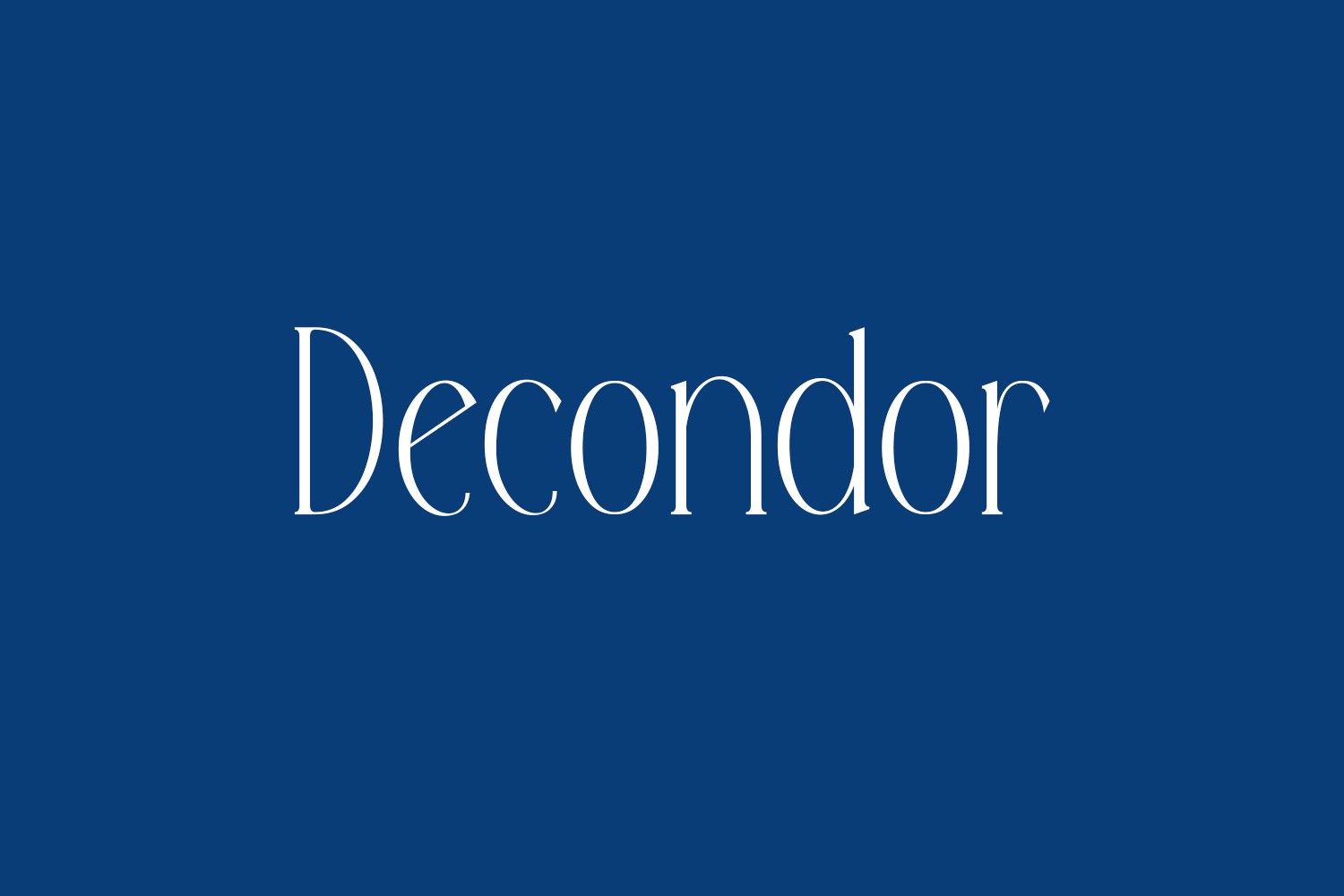
Decondor Free Font is a modern and sophisticated serif font that exudes elegance and refinement. Its sleek lines and classic form create a timeless look that is perfect for any high-end design project. The font’s sharp serifs and balanced spacing give it a professional and polished appearance that is sure to impress. Whether you’re designing a luxury brand, a high-end fashion campaign, or a prestigious annual report, Decondor is the perfect font to elevate your work and make a lasting impression. And the best part, it’s available for free!